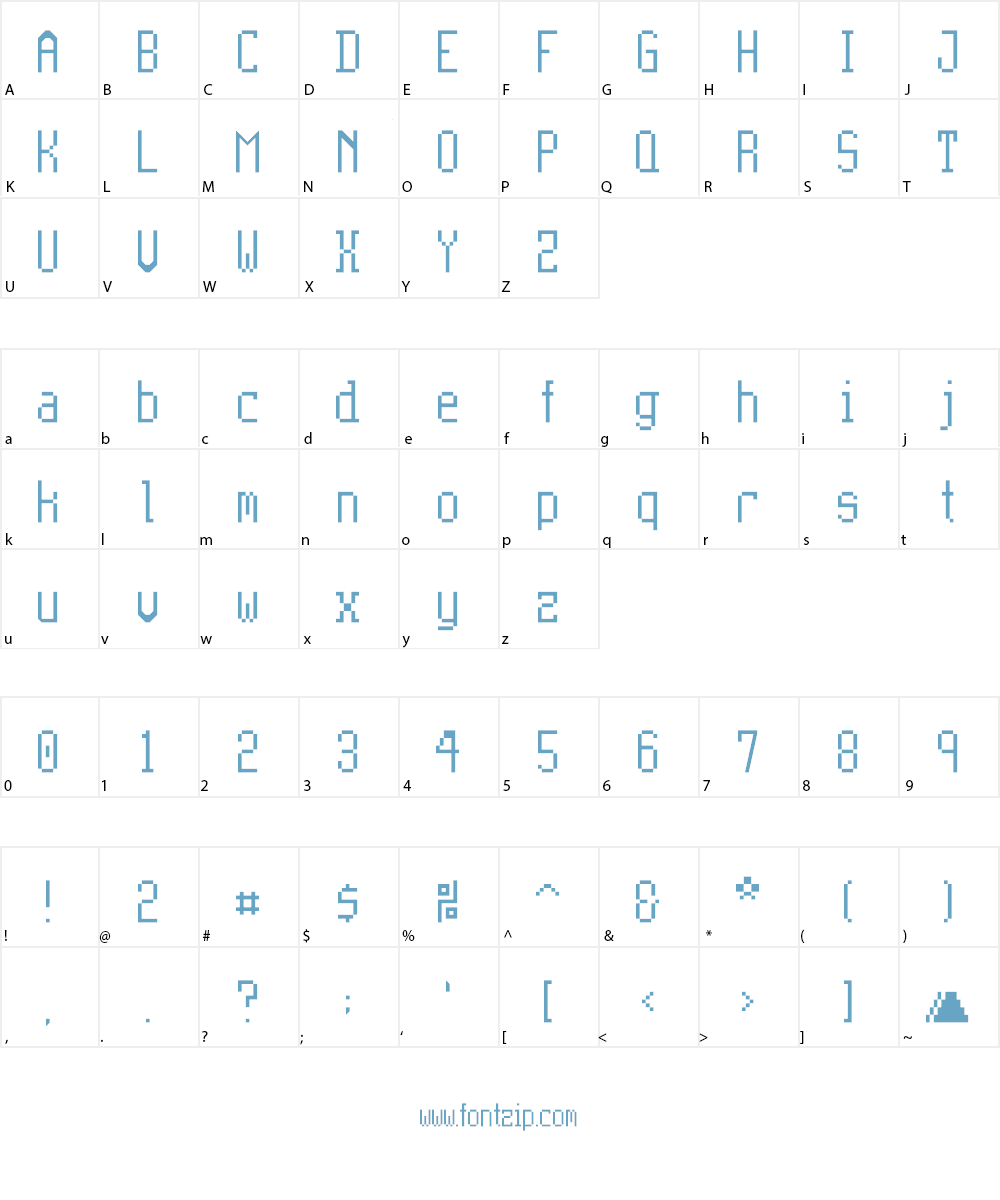
Based on the lettering in Devo's album, Shout.
This font was used to dedicate Devo member, Robert "Bob 2" Casale, who died of heart failure back in 2014.